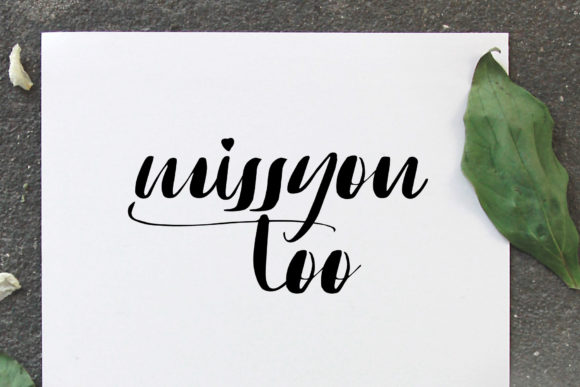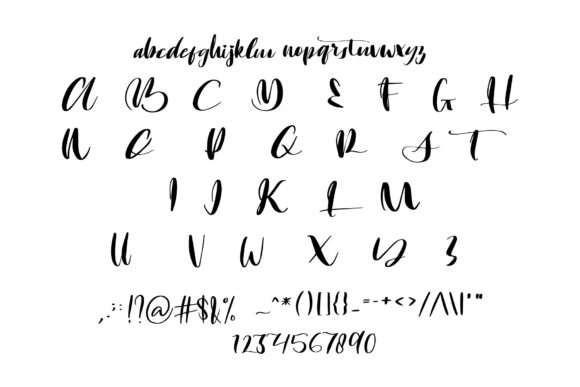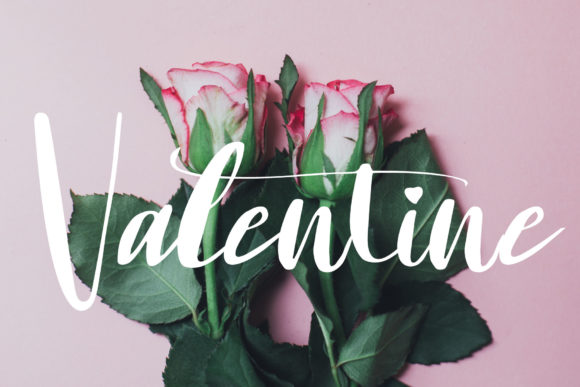
HomeScript FontsSetia Font Script Fonts Setia Font FacebookXPinterestWhatsApp Setia Font Poster 2 Setia Font Poster 3 Setia Font Poster 4 About Setia Font Setia is a lovely script font. It will add a romantic touch to any crafting project. DOWNLOAD NOW People also explored Karthur Font Flowerose Font Planolla Font Merry Christmas Font Belma Flora Font Brightwise Font Christmas Flower Font Mellinda Wedding Font Back 2 School Font 359 0 TagsSetia Font Previous articleMilstage FontNext articleSeattle Font LEAVE A REPLY Cancel reply Comment: Please enter your comment! Name:* Please enter your name here Email:* You have entered an incorrect email address! Please enter your email address here Website: Save my name, email, and website in this browser for the next time I comment. Personal Use Free Hysteria Santa Personal Use Free Read more about this font Hollster Personal Use Free Read more about this font Recharge Bold Personal Use Free Read more about this font Gupis Personal Use Free Read more about this font BLOG Transform Your Website: Elevate Your Typography with 7 Best Web Font Generators Are you ready to transform your website's typography from ordinary to extraordinary? Great! Today, we're diving into the world of web font generators, which... Top 7 Google Fonts Alternatives for Faster and Privacy-Friendly Web Design (2025) To increase your work productivity, choose the most readable fonts. Modern Sans-Serif Fonts That Brands Love in 2025